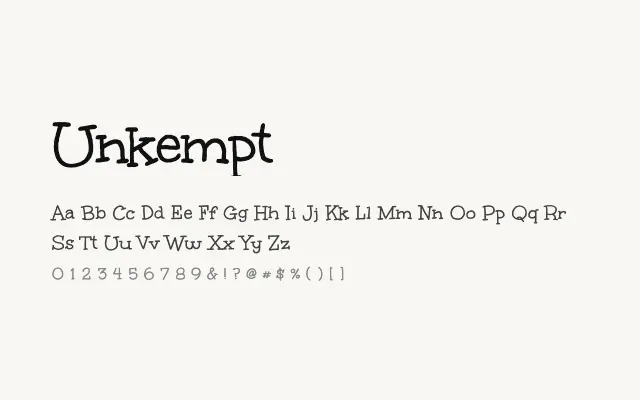
A scruffy, hand-drawn display face that wears its informality as a badge of honour.
Unkempt's irregular, sketchy letterforms evoke a felt-tip pen wielded with cheerful abandon, making it well suited to children's content, informal branding, and novelty headlines. Its two weights offer some flexibility, though the overall range is narrow. Best deployed in small doses where rough charm is the point.
Unkempt mimics rough, childlike handwriting with irregular strokes and uneven letterforms. The deliberately casual, messy quality gives it a spontaneous, hand-drawn character.